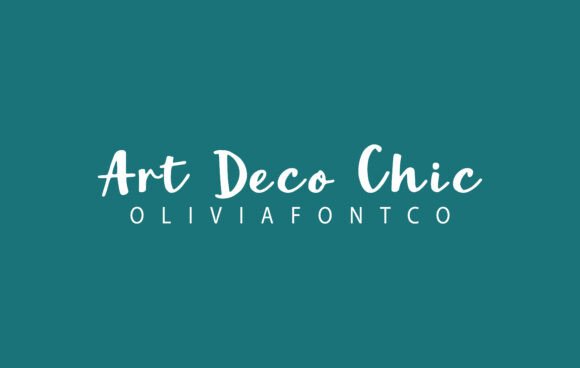
Art Deco Chic Font: Elevate Your Designs with Elegance and Sophistication
Are you looking for a font that exudes luxury, glamour, and romance? Look no further than the Art Deco Chic Font. This authentic handwritten font is expertly designed to add a touch of sophistication to your creative projects. With its legible and versatile design, Art Deco Chic Font is perfect for a wide range of applications, from magazine headlines to wedding invitations.
The Essence of Art Deco Chic Font
Art Deco Chic Font is a true gem in the world of typography. Its authentic handwritten design gives it a unique and romantic touch that is sure to captivate your audience. The font’s elegant and refined aesthetic is reminiscent of the opulent Art Deco era, characterized by its geometric shapes, metallic materials, and ornate decorations.
Key Features of Art Deco Chic Font
- Authentic Handwritten Design: Art Deco Chic Font boasts an authentic handwritten design that gives it a personal and unique touch.
- Legible and Versatile: The font is highly legible and can be used for both title and body text, making it perfect for a wide range of applications.
- Romantic and Elegant: The font’s elegant and refined aesthetic makes it perfect for designs that require a touch of luxury and sophistication.
Uses of Art Deco Chic Font
Art Deco Chic Font is an incredibly versatile font that can be used for a wide range of creative projects. Here are some ideas to get you started:
- Magazine Headlines: Add a touch of glamour to your magazine headlines with Art Deco Chic Font.
- Social Media: Use Art Deco Chic Font to create eye-catching social media graphics that are sure to stand out.
- Branding: Establish your brand’s luxury credentials with Art Deco Chic Font.
- Wedding Invitations: Make your wedding invitations truly special with Art Deco Chic Font.
- Cards: Create beautiful and elegant cards for special occasions with Art Deco Chic Font.
Why Choose Art Deco Chic Font?
With so many fonts available, why choose Art Deco Chic Font? Here are just a few reasons:
- Unique and Authentic Design: Art Deco Chic Font boasts a unique and authentic design that will set your designs apart from the crowd.
- Highly Legible: The font is highly legible, making it perfect for both title and body text.
- Elegant and Refined: Art Deco Chic Font’s elegant and refined aesthetic makes it perfect for designs that require a touch of luxury and sophistication.
Tips for Using Art Deco Chic Font
Here are a few tips for getting the most out of Art Deco Chic Font:
- Use it Sparingly: Use Art Deco Chic Font sparingly to add a touch of elegance and sophistication to your designs.
- Experiment with Colors: Experiment with different colors to find the perfect combination that complements Art Deco Chic Font.
- Pair it with Other Fonts: Pair Art Deco Chic Font with other fonts to create a unique and visually appealing design.
Art Deco Chic Font is a true gem in the world of typography. Its authentic handwritten design, legible and versatile aesthetic, and elegant and refined style make it perfect for a wide range of creative projects. Whether you’re looking to add a touch of luxury to your magazine headlines, social media graphics, or wedding invitations, Art Deco Chic Font is the perfect choice.